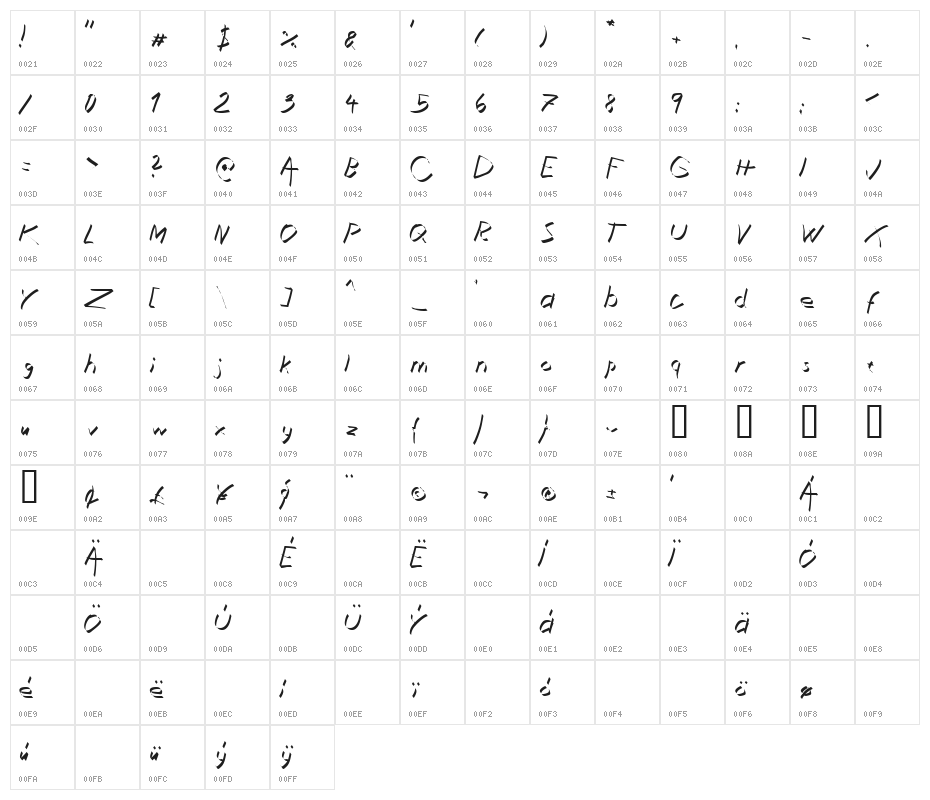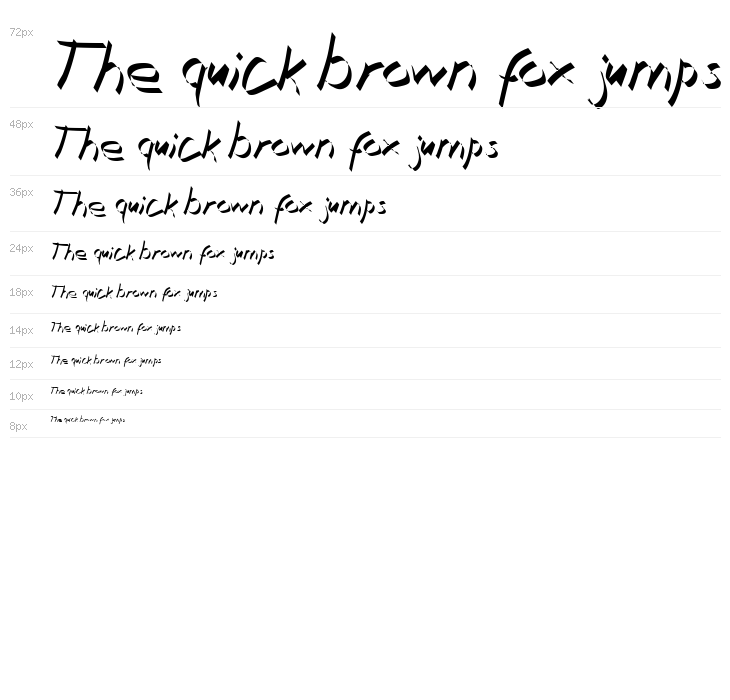
Xaligraphy ThinItalic Font
Xaligraphy ThinItalic Description
This font features a dynamic and expressive style, characterized by its thin, italicized strokes that convey a sense of movement and fluidity. The letters have a calligraphic influence, with sharp angles and varying stroke widths that add a touch of elegance and sophistication. The uppercase and lowercase letters maintain a consistent style, while the numerals and special characters complement the overall aesthetic. This font's unique design makes it stand out, offering a modern twist on traditional calligraphy.
| Use Case | Logos, Invitations, Artistic Posters |
| Proposed Projects | Ideal for creative projects such as branding, invitations, and artistic posters where a touch of elegance and expressiveness is desired. |